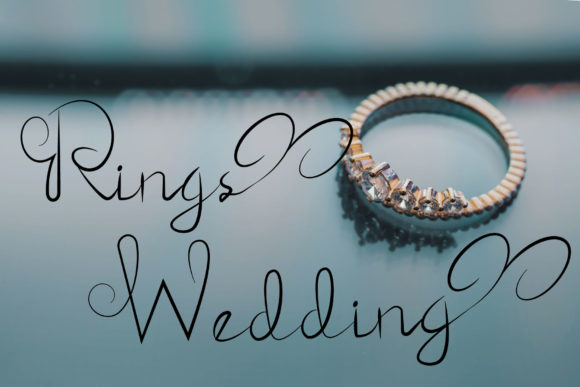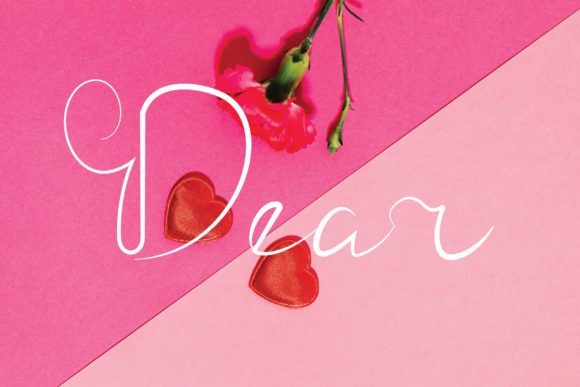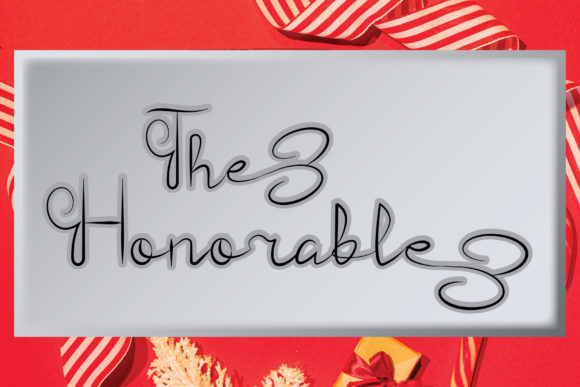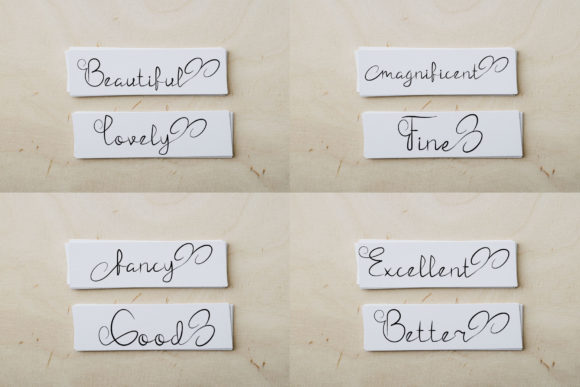
Introduction to Lovely Card Font Font
Fonts play a crucial role in design, and the Lovely Card Font font is a typeface that brings both character and versatility to any project. Whether you’re working on a branding project, a website, or a print design, the Lovely Card Font font offers a unique style that can elevate your work.
Lovely Card is a sweet, romantic and thin lettered script font.
It looks stunning on wedding invitations, thank you cards, quotes, greeting cards, logos, business cards and every other design which needs a handwritten touch This font is PUA encoded which means you can access all of the glyphs and swashes with ease.
Key Features of Lovely Card Font Font
Why Choose Lovely Card Font Font?
The Lovely Card Font font is more than just a typeface – it’s a design tool that helps you communicate your message with style and clarity. Its unique character set and versatile design make it suitable for a wide range of applications, from elegant invitations to bold headlines.
With its carefully crafted letterforms and balanced proportions, the Lovely Card Font font ensures readability and visual appeal across all mediums.
What makes Lovely Card Font font special?
The Lovely Card Font font stands out with its unique design, exceptional readability, and versatility across various design applications.